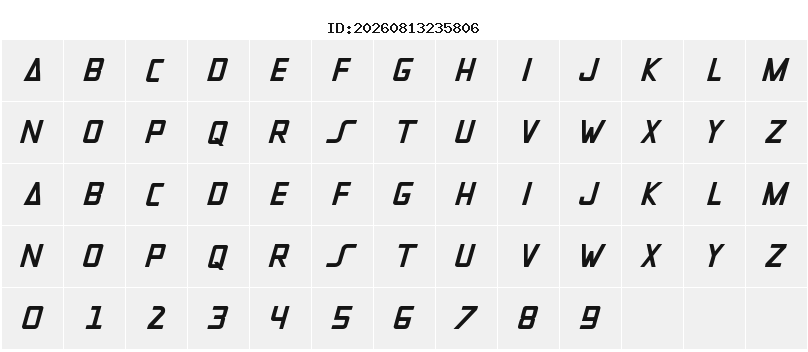
santacarla_black Preview
• Font Name: santacarla_black
• Full Font Name: santacarla_black
• Version: Version 1.00 December 4, 2009, initial release
• Designer: Kirk Shelton
About santacarla_black.ttf
santacarla_black.ttf is a modern, elegant sans-serif font designed for ultimate readability and visual harmony. Perfect for branding, headlines, web design, and print materials.